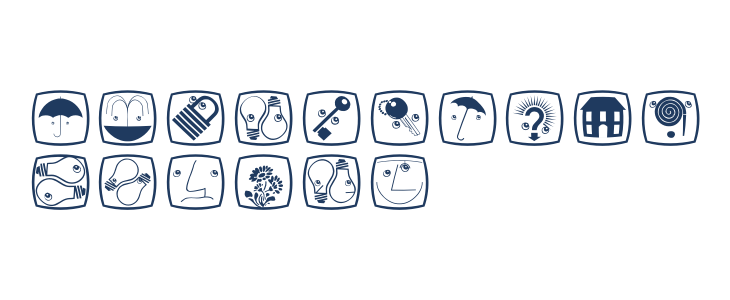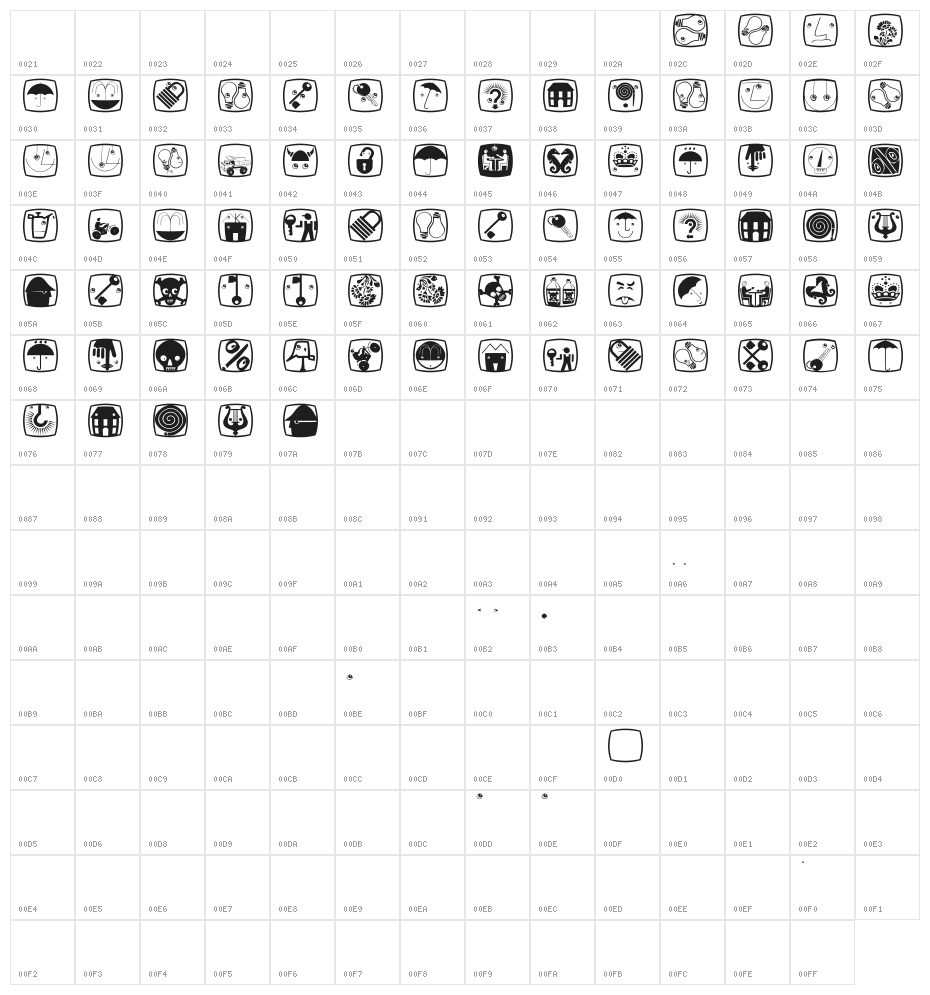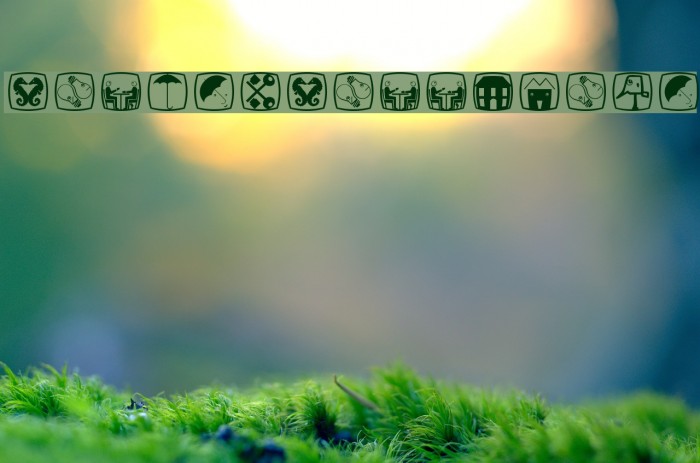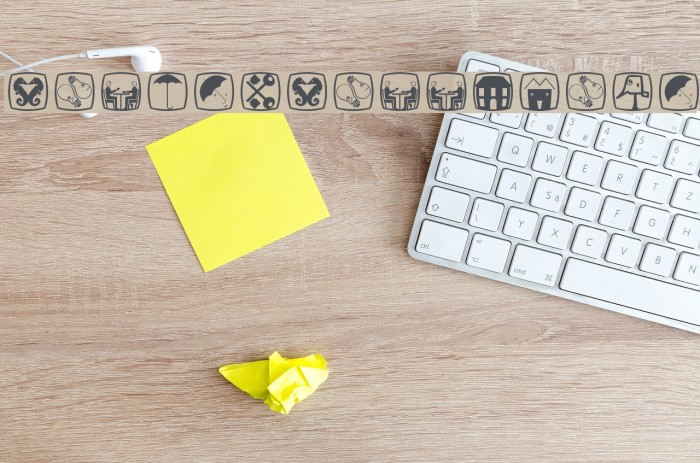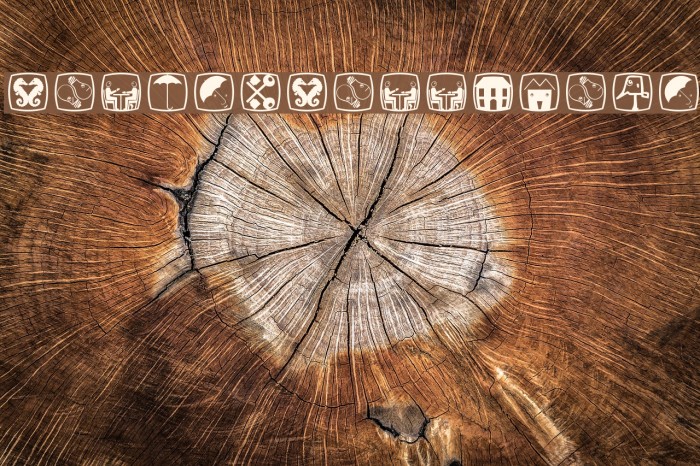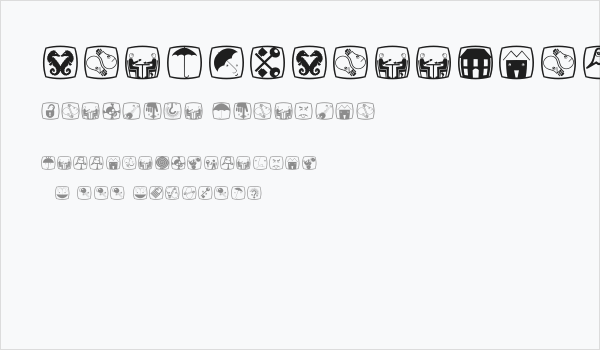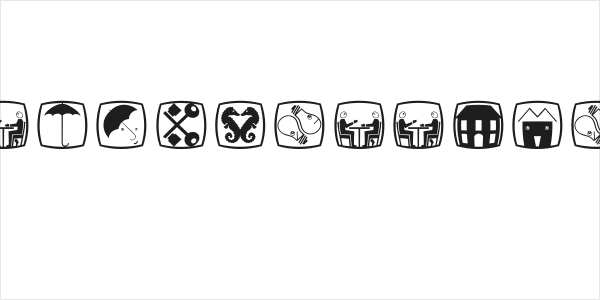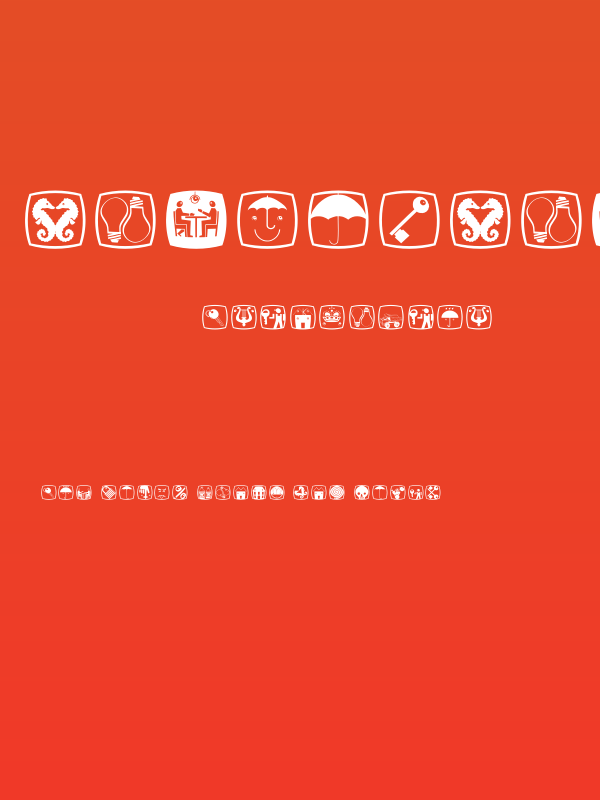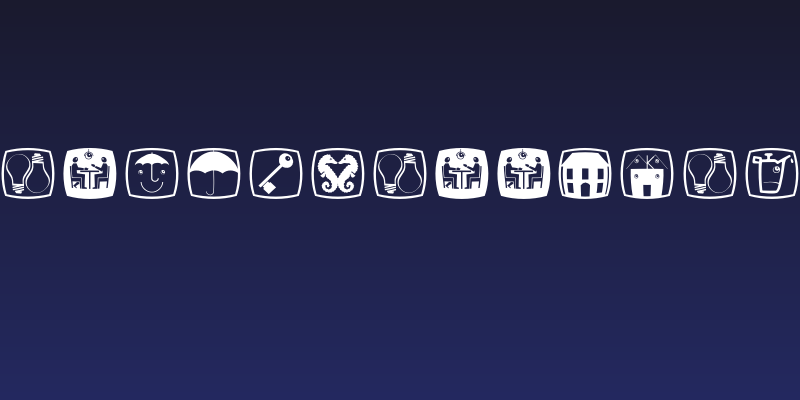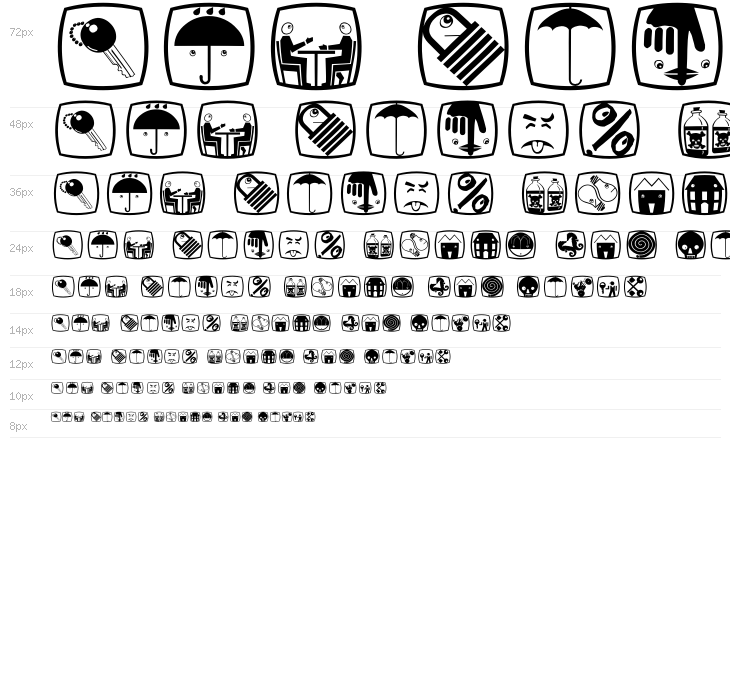
FreudsFreeWorld Font
FreudsFreeWorld Description
This is a highly decorative and artistic font that features unique, hand-drawn illustrations within each character. Each letter and symbol is enclosed in a square, giving the font a consistent and structured appearance. The illustrations are whimsical and abstract, often depicting faces, objects, and patterns that evoke a sense of creativity and playfulness. The font is bold and visually striking, making it ideal for projects that require a strong visual impact. The characters are evenly spaced, and the overall style is modern with a touch of surrealism.
| Overall Style | Modern, Surreal |
| Use Case | Headlines, Logos, Artistic projects |
| Proposed Projects | Ideal for creative projects such as posters, album covers, children's books, and artistic branding. |